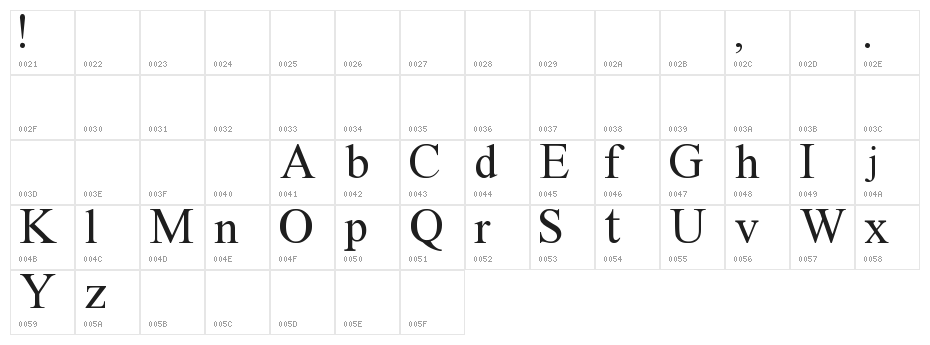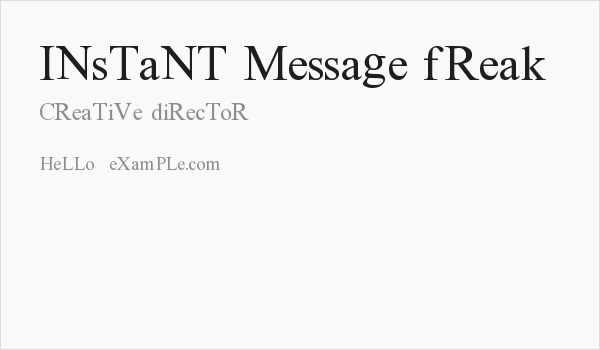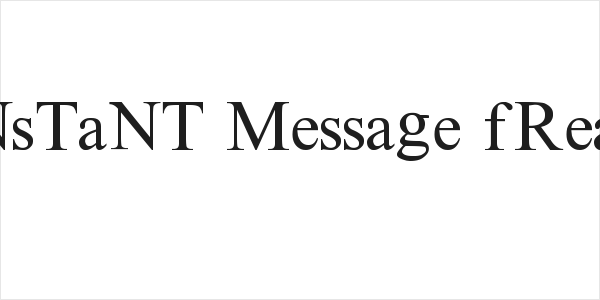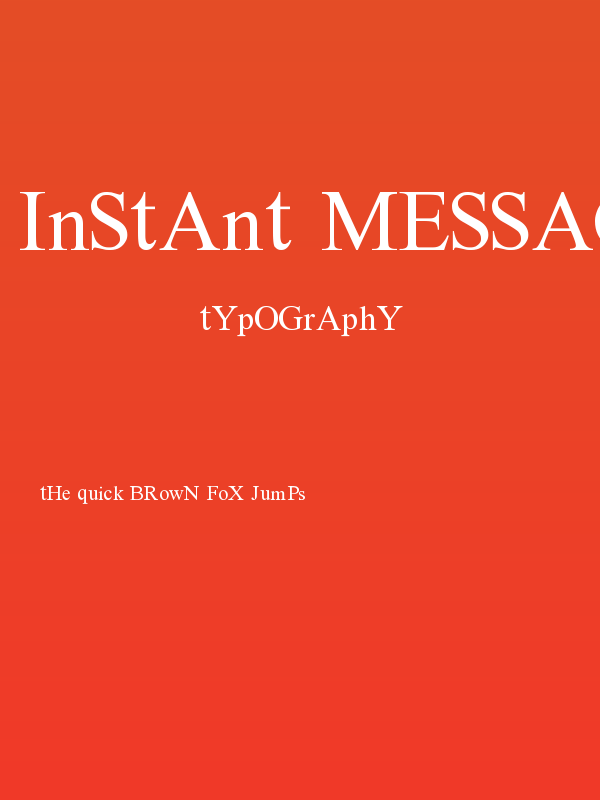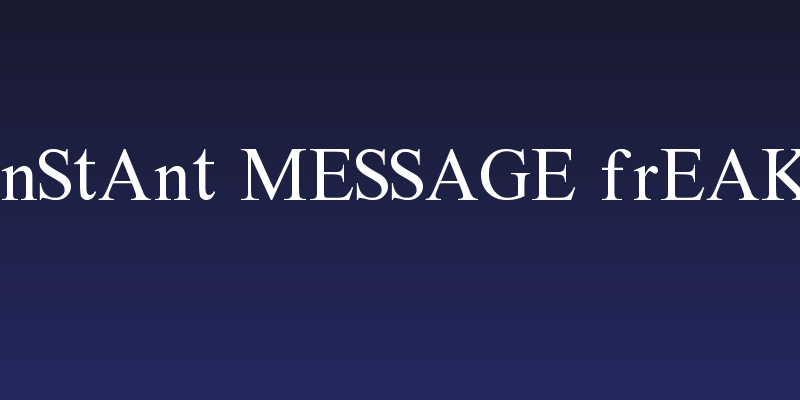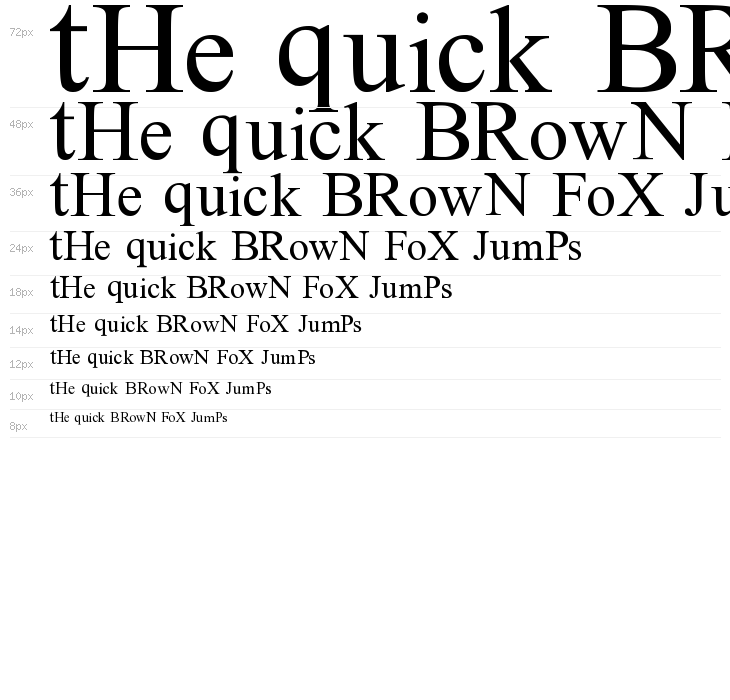
Instant Message Freak Font
Instant Message Freak Description
This font exhibits a classic serif style with elegant and refined strokes. The characters are well-proportioned, featuring distinct serifs that add a touch of sophistication. The uppercase letters are bold and commanding, while the lowercase letters maintain a graceful appearance. The numerals are clear and easy to read, making them suitable for various applications. The special characters are designed with the same attention to detail, ensuring consistency throughout the font. Overall, this font conveys a sense of tradition and reliability, making it ideal for formal documents and professional settings.